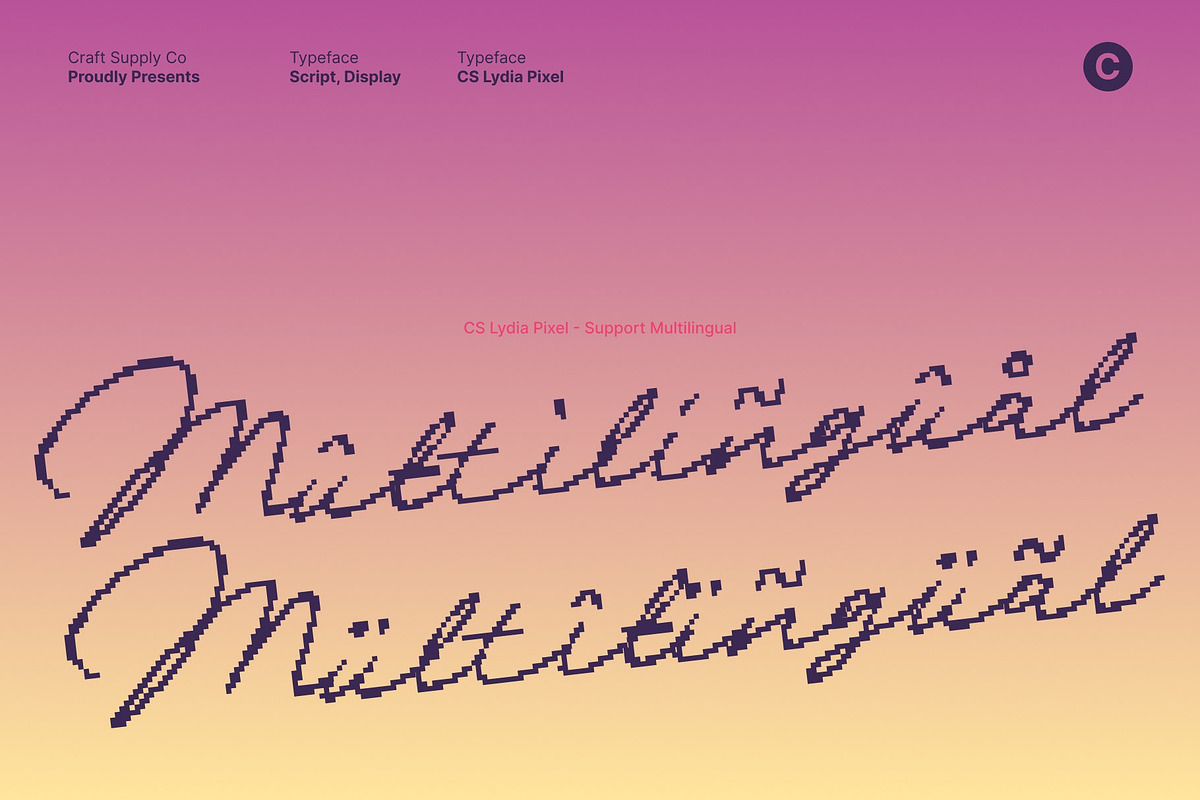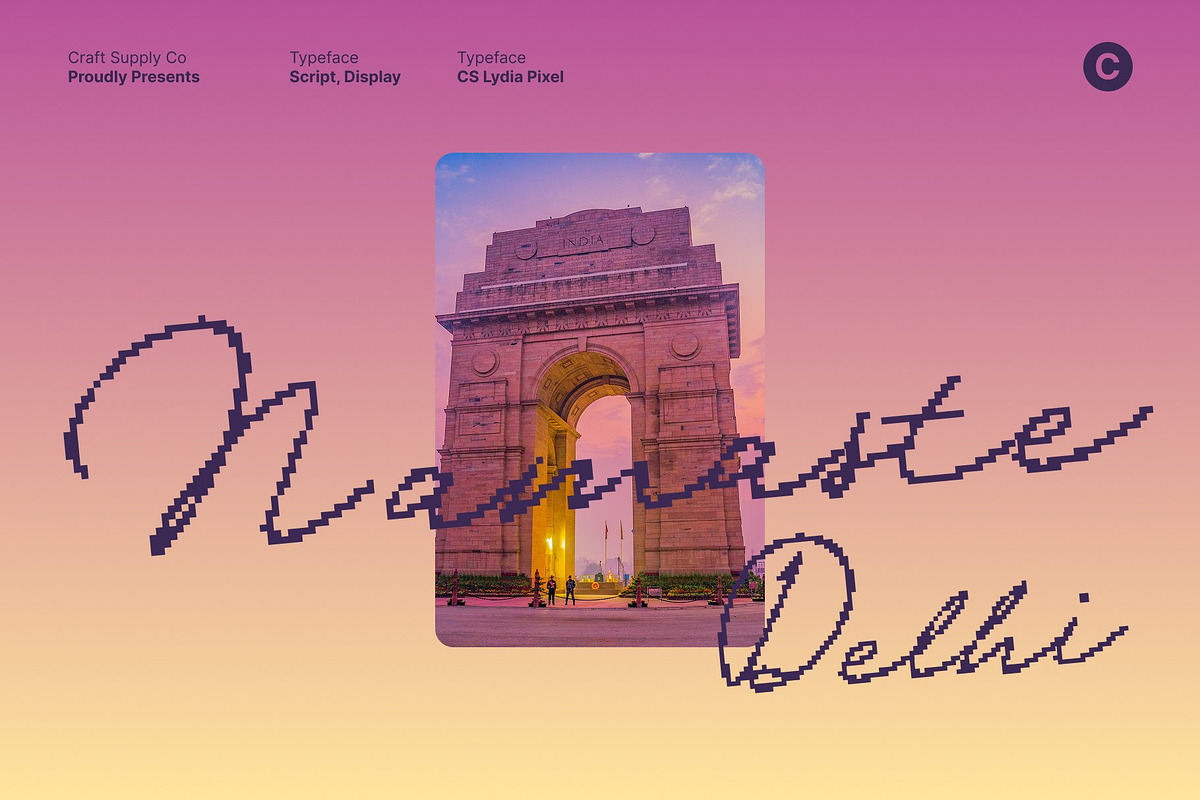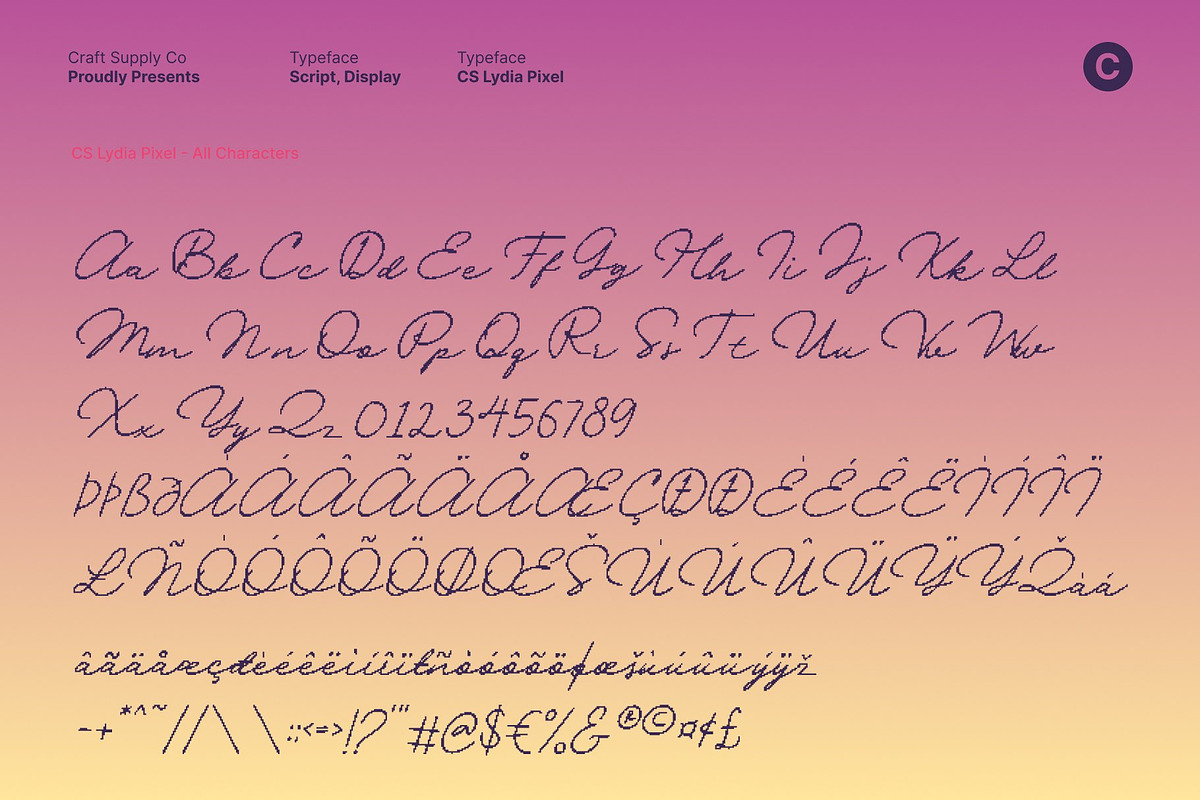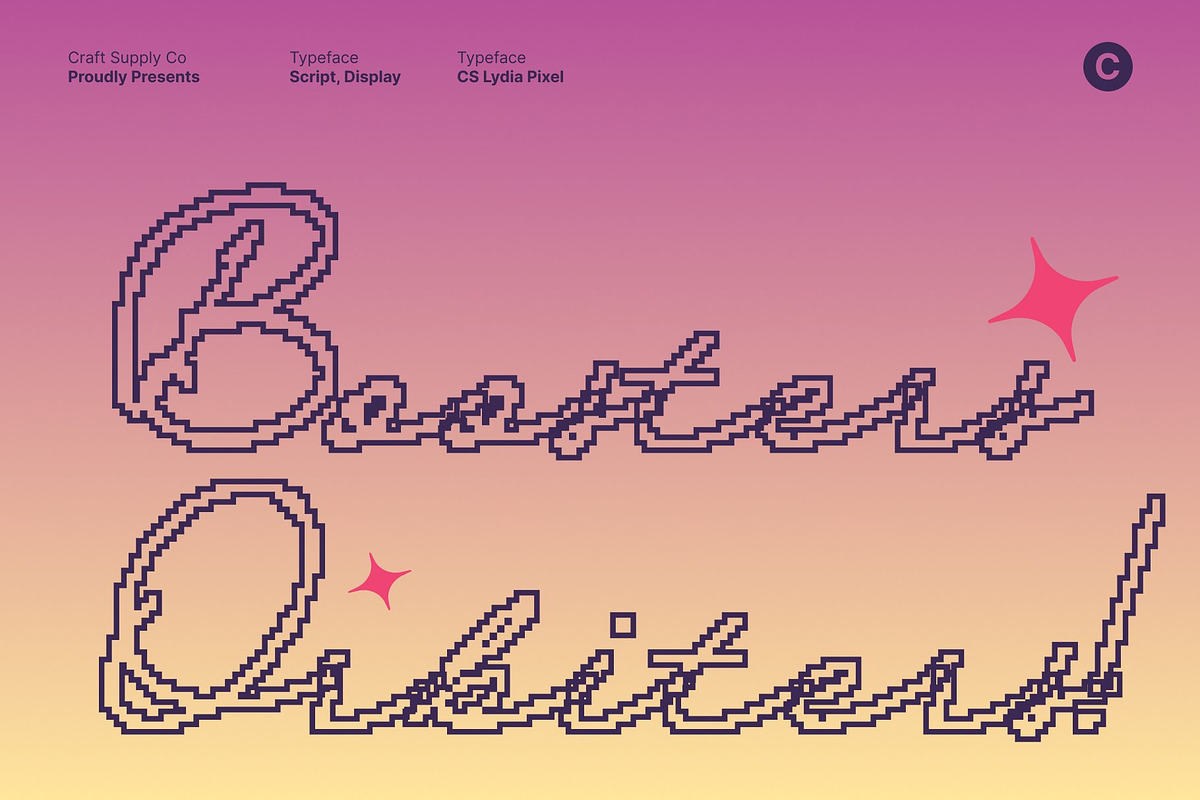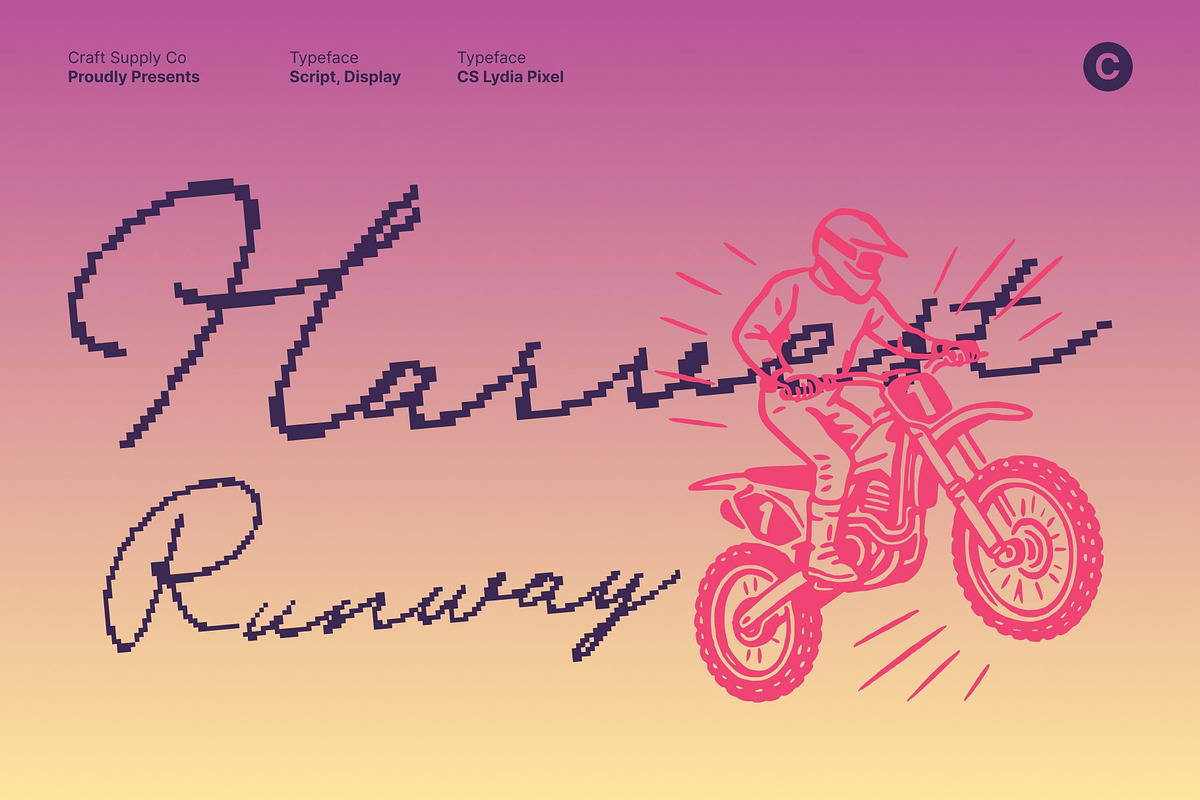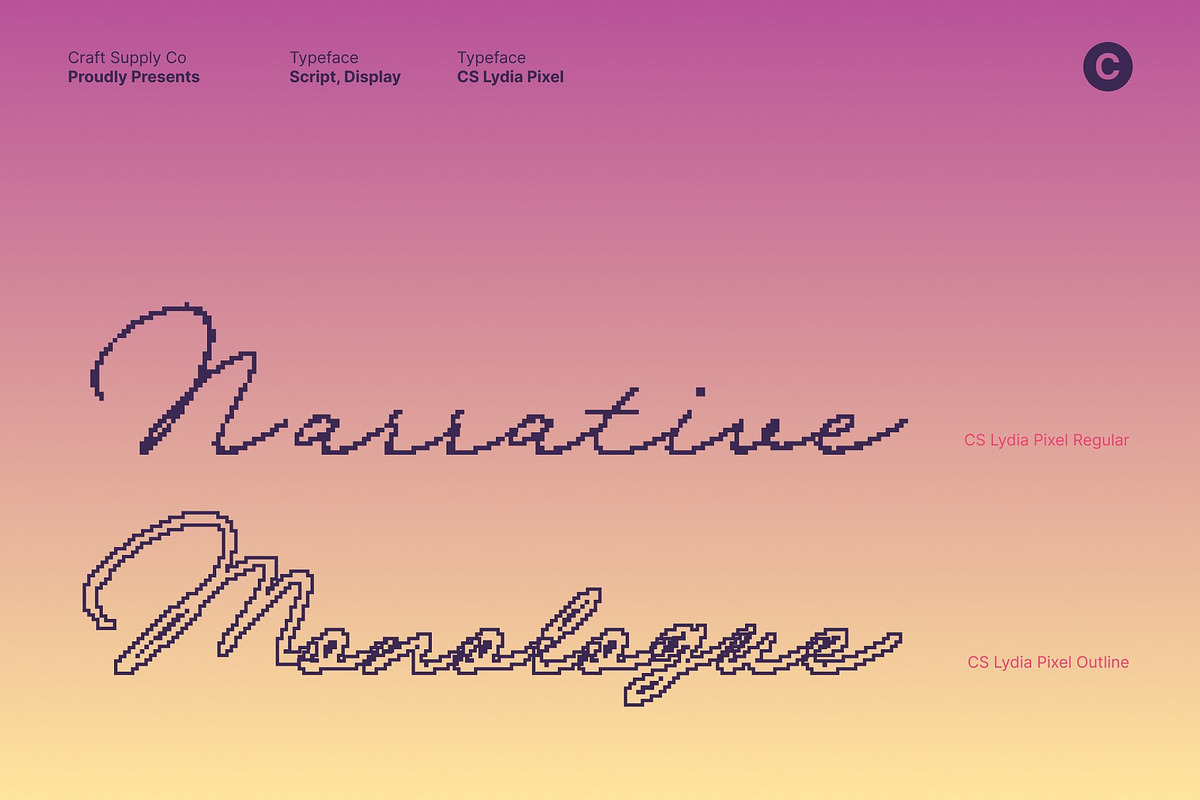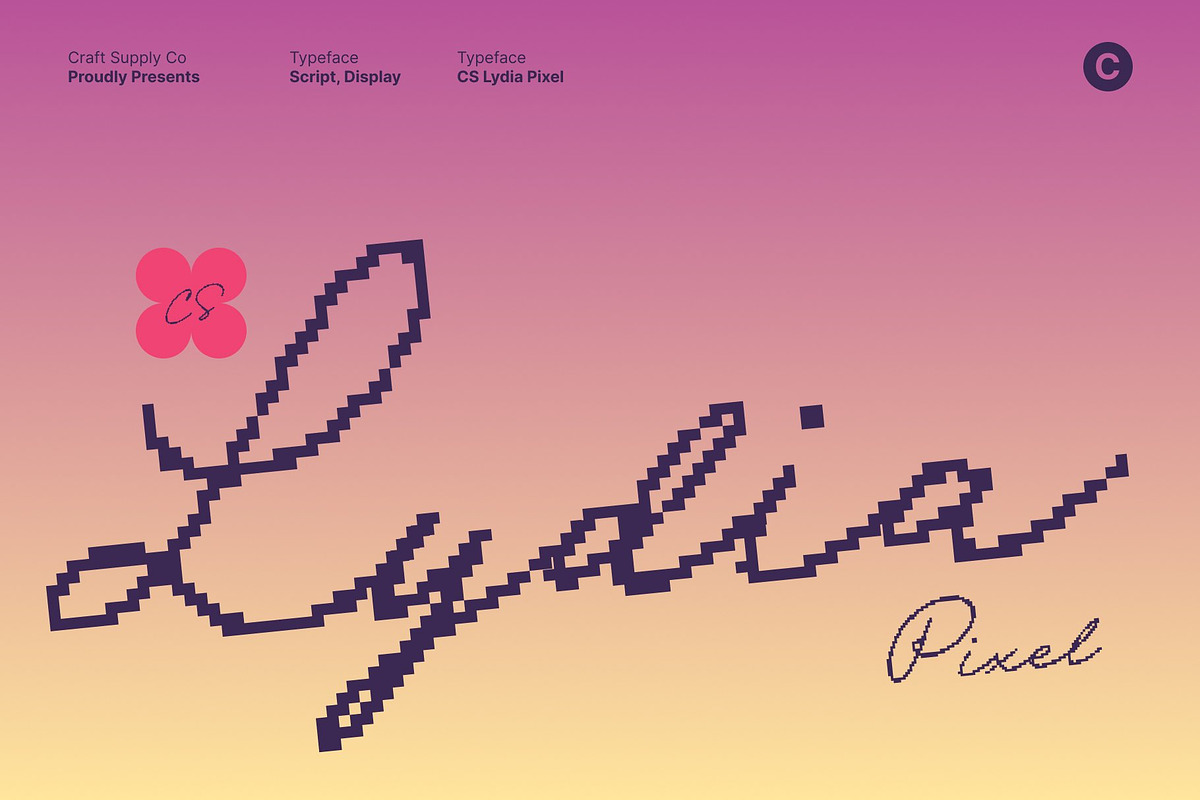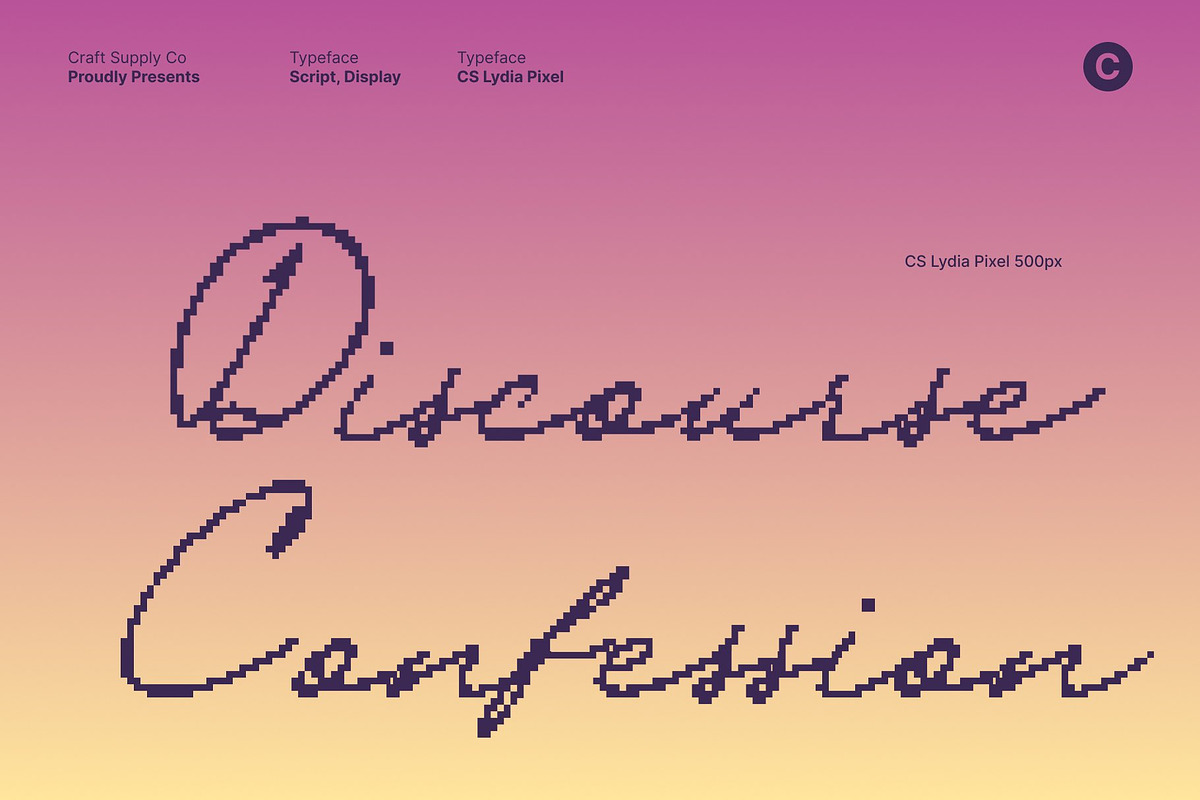
CS Lydia Pixel
CS Lydia Pixel – Handwritten Elegance with Digital Mediterranean Grace
Romantic Script with Pixel-Refined Beauty This is a handwritten script font that merges timeless Mediterranean elegance with subtle pixel detailing. Its smooth, flowing curves and refined letterforms capture natural sophistication, while the pixel accents add a modern, digital-friendly touch perfect for designs that want romance and style in equal measure.
Elegant Flow with Digital Refinement Each stroke is crafted to convey fluidity and charm, enhanced by carefully integrated pixel edges that maintain readability and visual precision. The gentle movement of the script lines evokes warmth and grace, giving every composition a personal yet polished rhythm.
Natural Sophistication Meets Modern Pixel Aesthetics Blending the spontaneity of handwriting with digital refinement, This font strikes the perfect balance between organic elegance and contemporary clarity. Its subtle pixel structure ensures versatility across both print and digital applications while preserving the font’s intimate, luxurious feel.
Ideal for Elegant, Luxurious, and Creative Projects Perfect for premium branding, media social design, editorial layouts, and lifestyle designs, this font adds timeless beauty, emotion, and Mediterranean-inspired charm. It’s the go-to choice for projects that require elegance, sophistication, and a touch of modern digital flair.
- CS Lydia Pixel Regular
- CS Lydia Pixel Outline